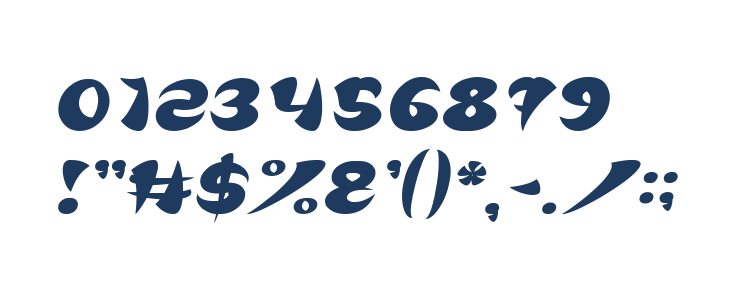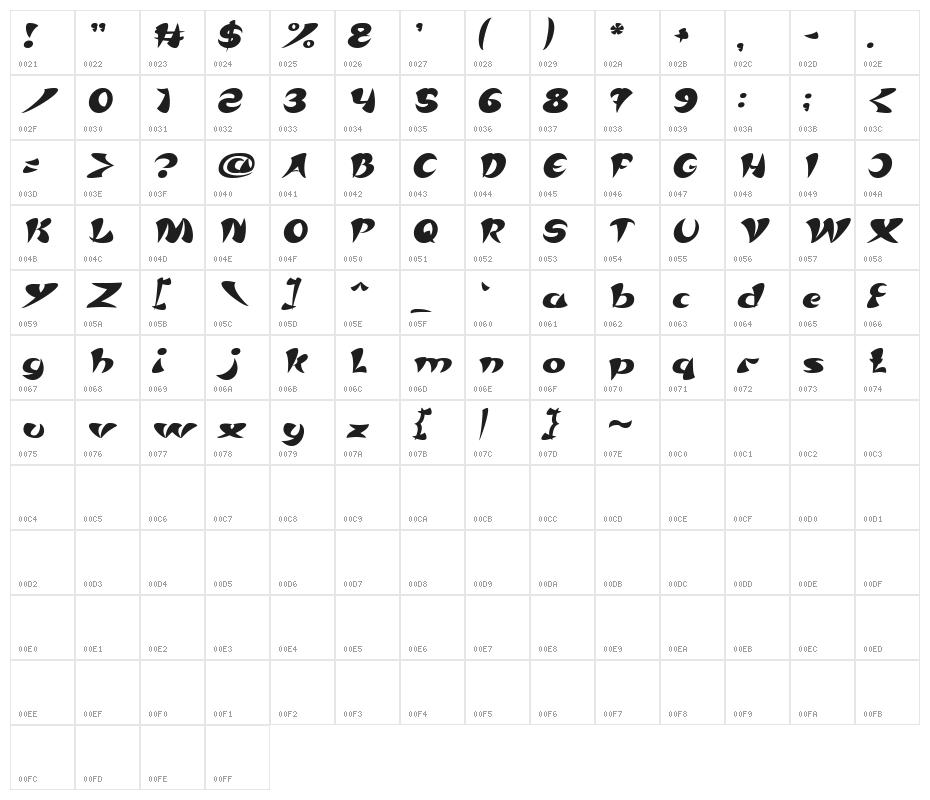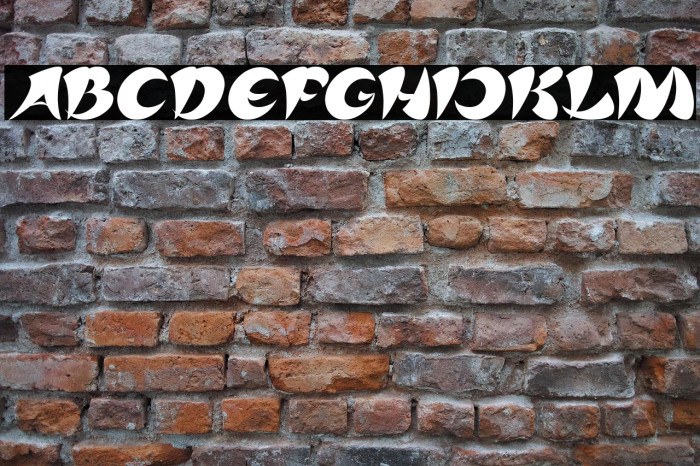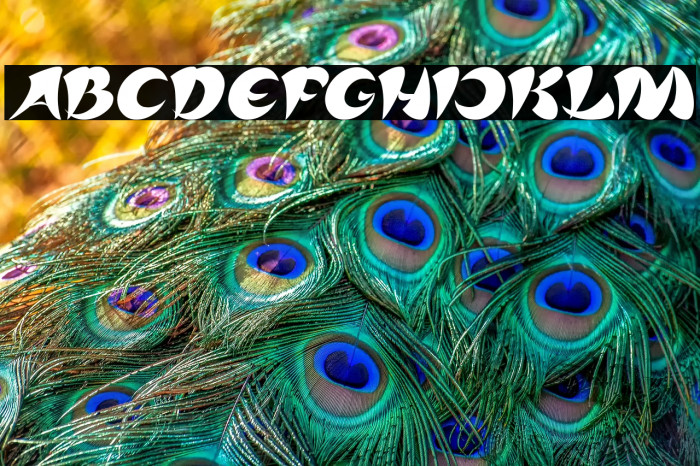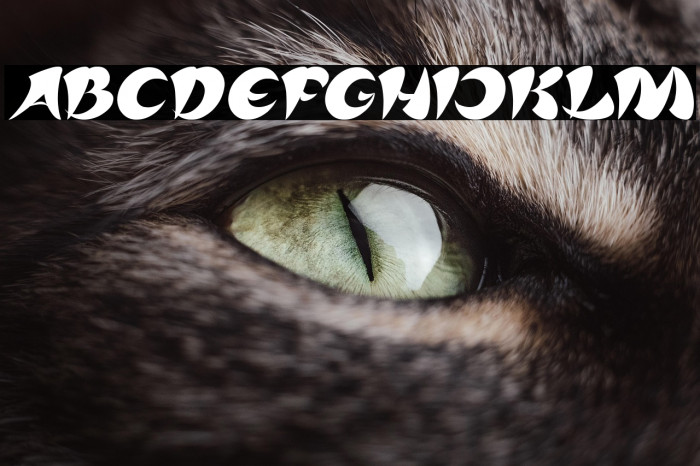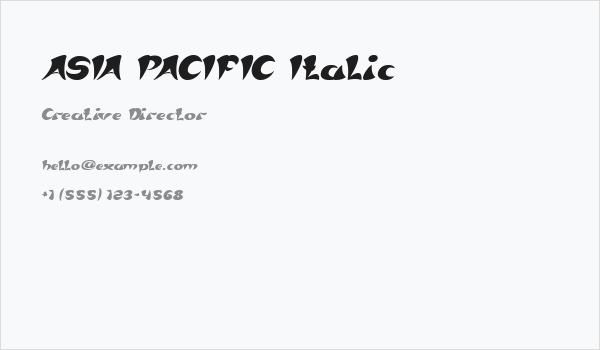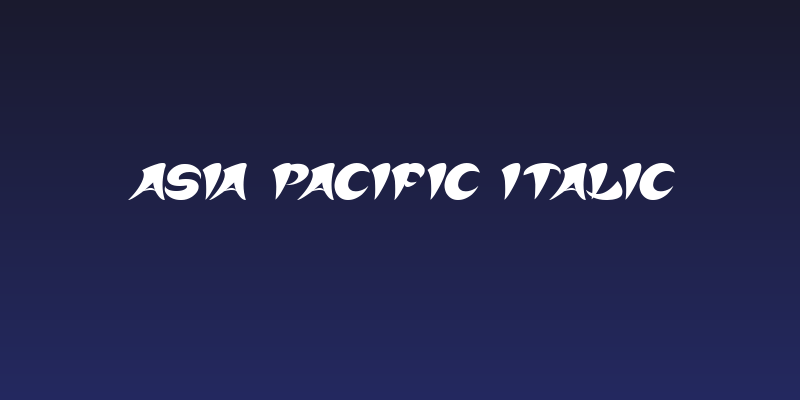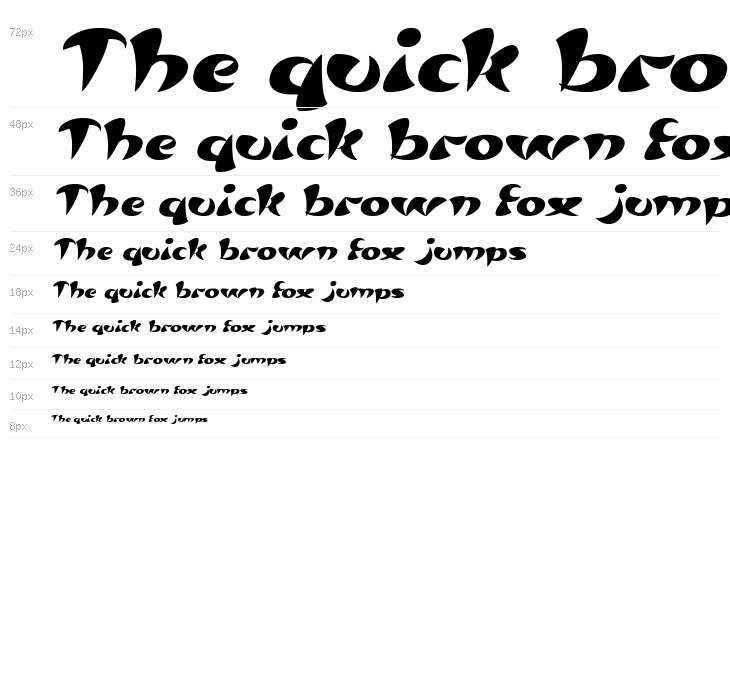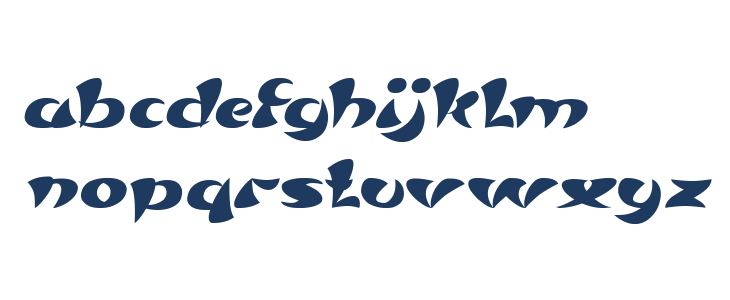
ASIA PACIFIC Italic Font
ASIA PACIFIC Italic Description
This font features a bold and dynamic style with a strong italic slant, giving it a sense of movement and energy. The characters are uniquely designed with sharp, angular edges and a high contrast between thick and thin strokes, creating a dramatic and eye-catching appearance. The uppercase and lowercase letters maintain a consistent style, while the numerals and special characters complement the overall aesthetic. This font is ideal for projects that require a bold statement and a modern, artistic flair.
| Proposed Projects | Ideal for branding, posters, headlines, and any design requiring a bold, artistic touch. |